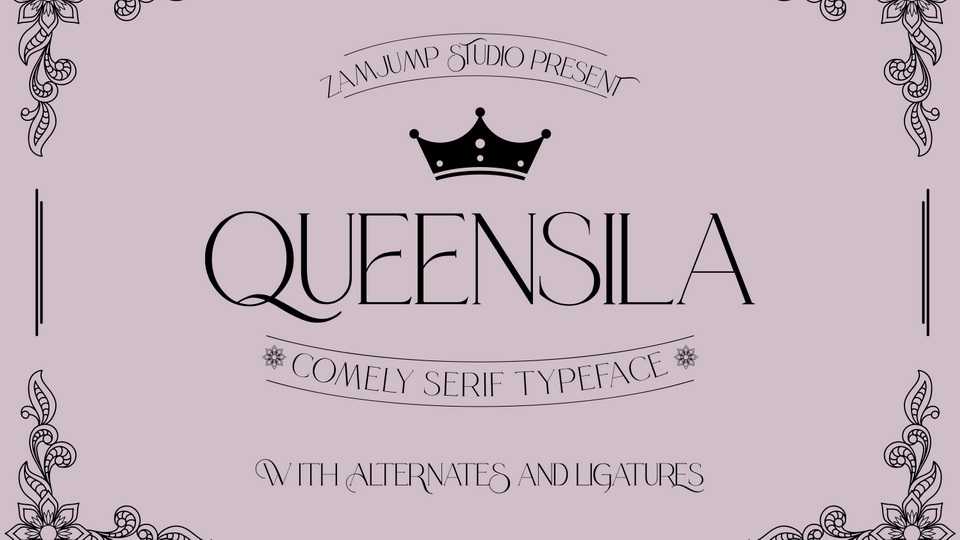
Download Queensila font, a comely styled serif typeface with beautiful ligatures, lots of custom alternative glyphs, and multilingual support. Queensila is a very versatile font that works well in large and small sizes.